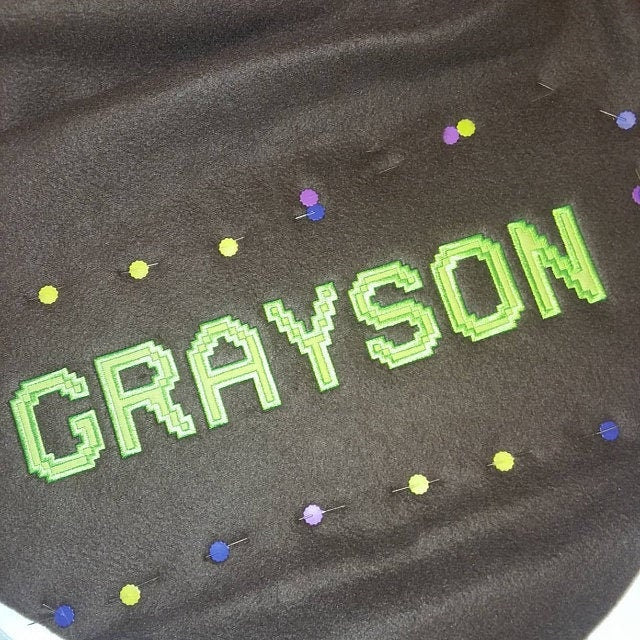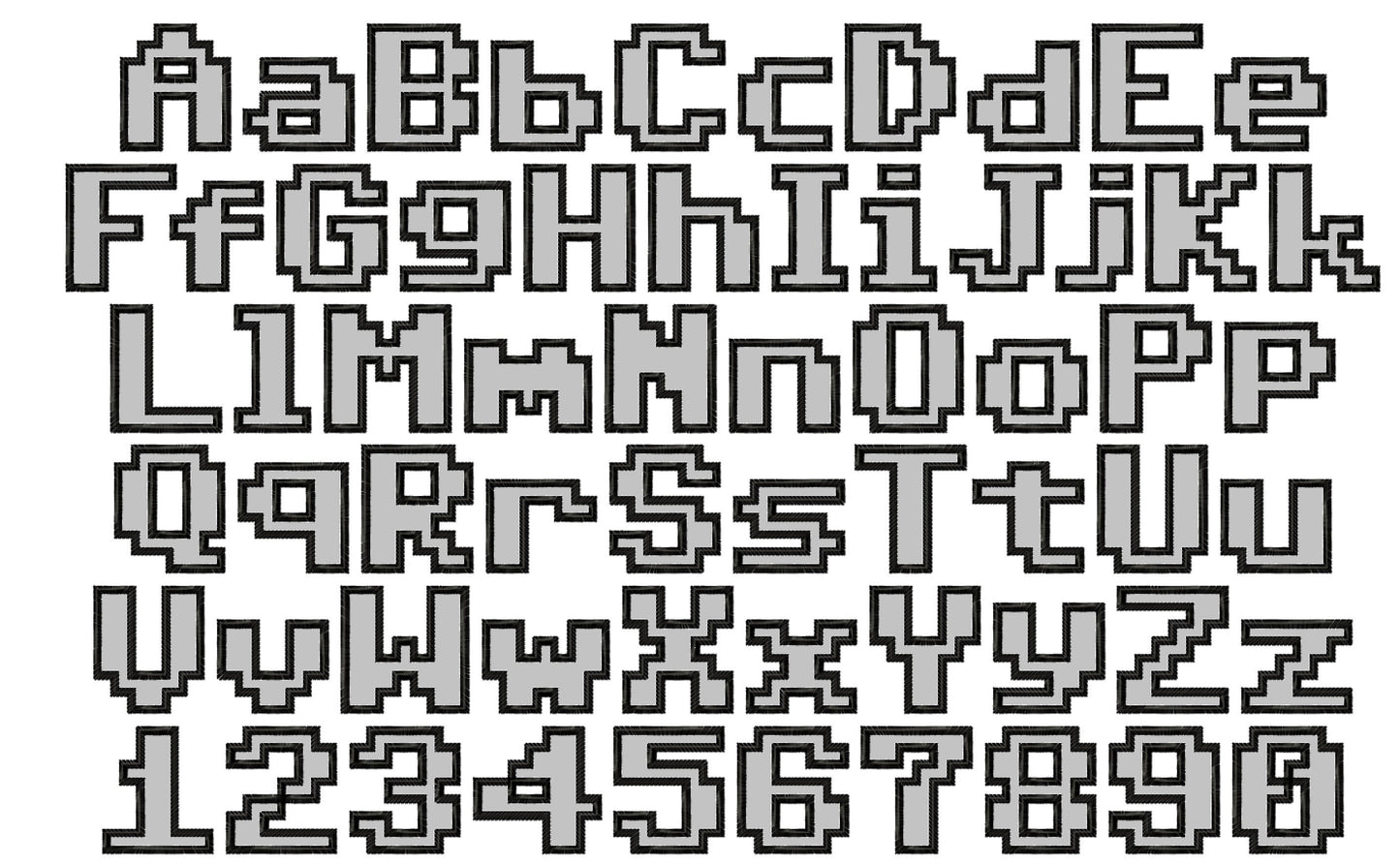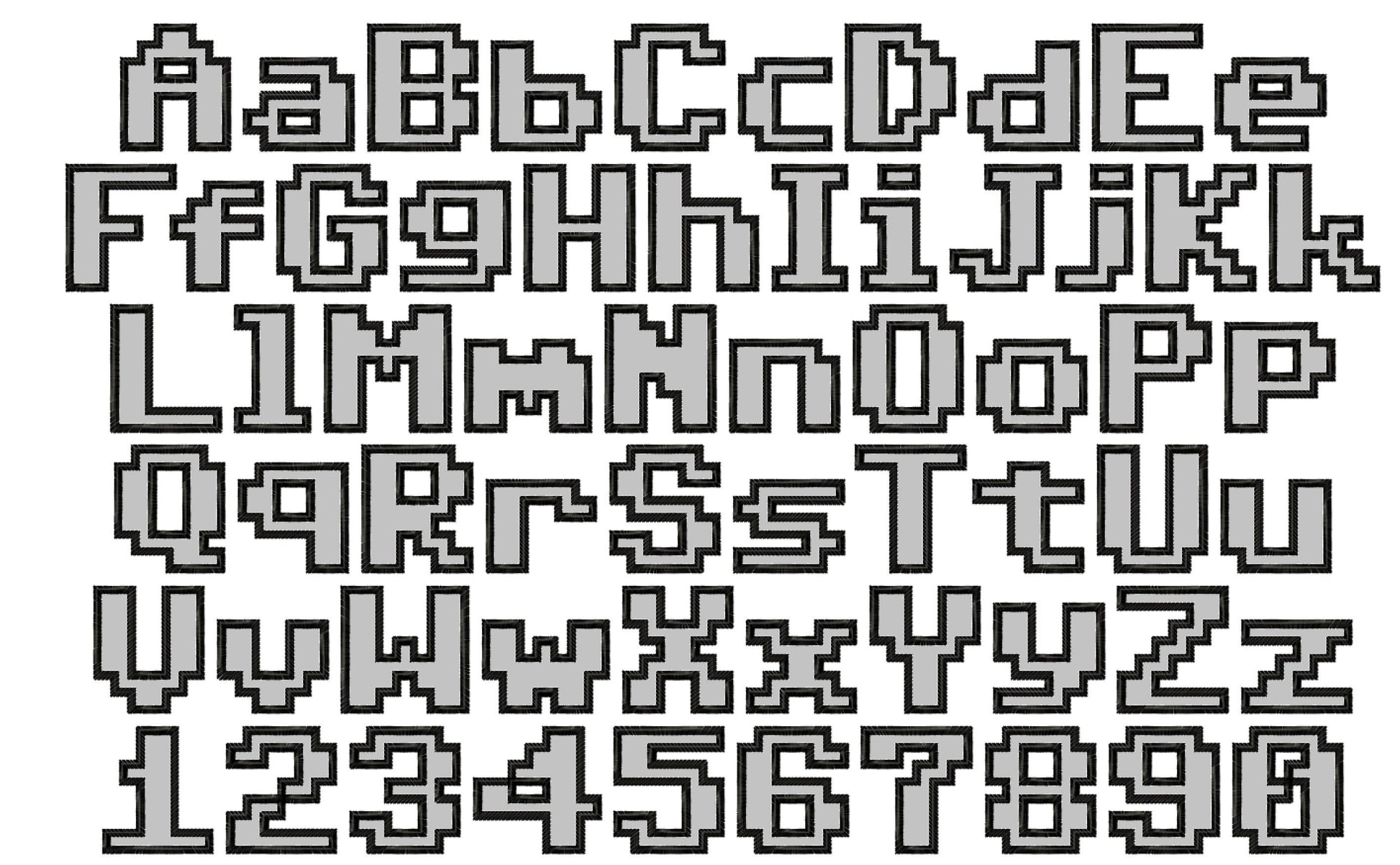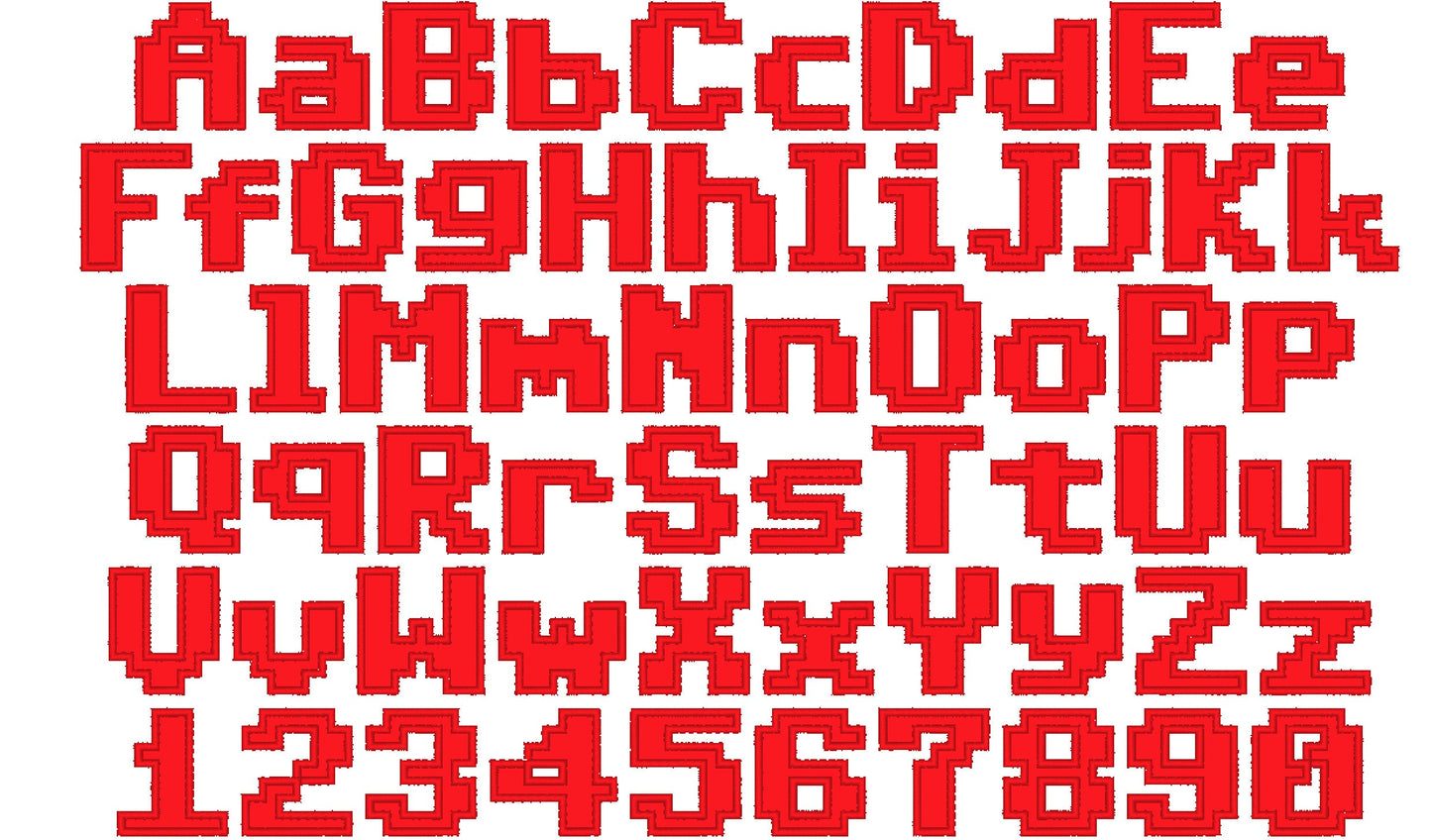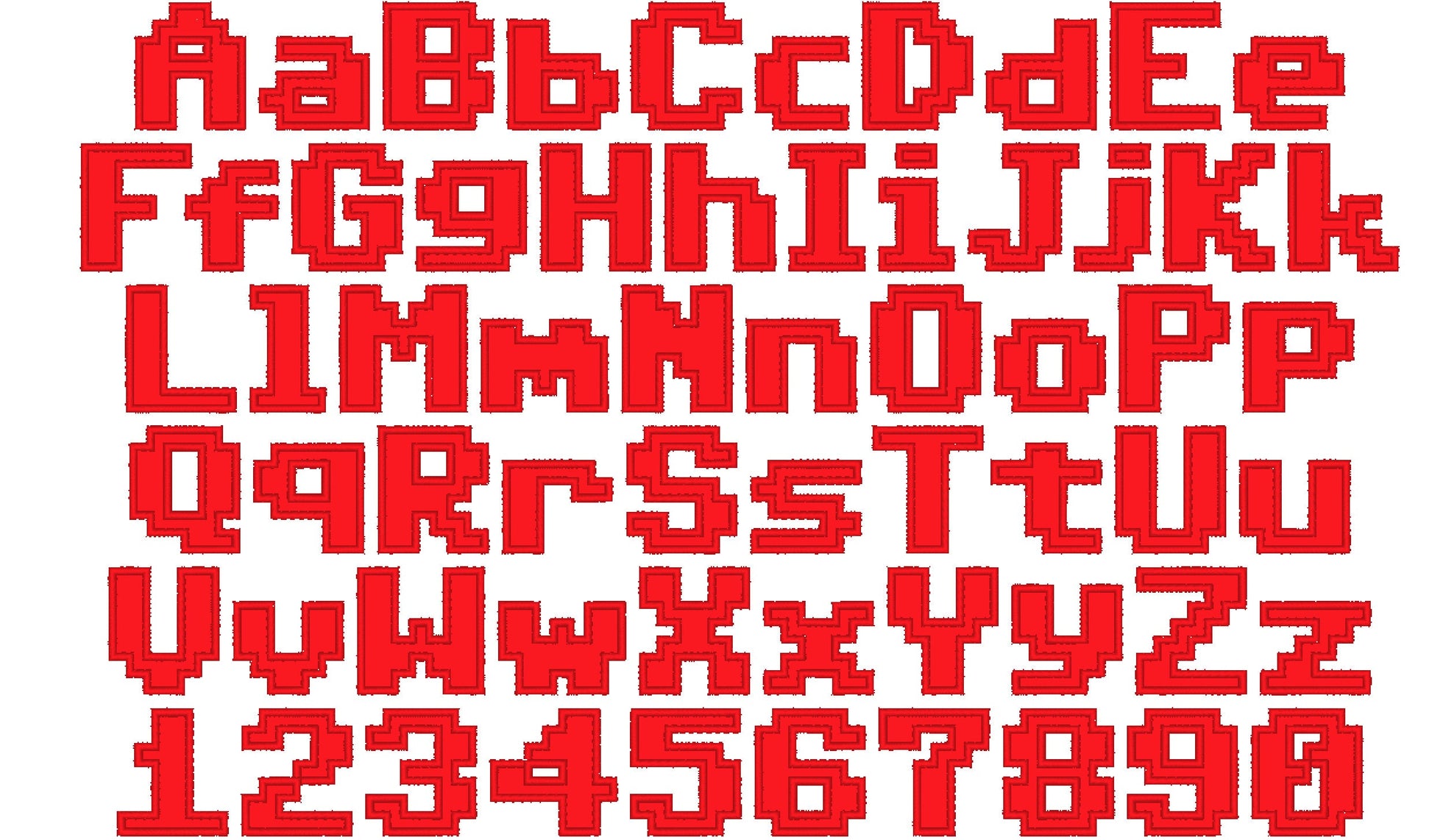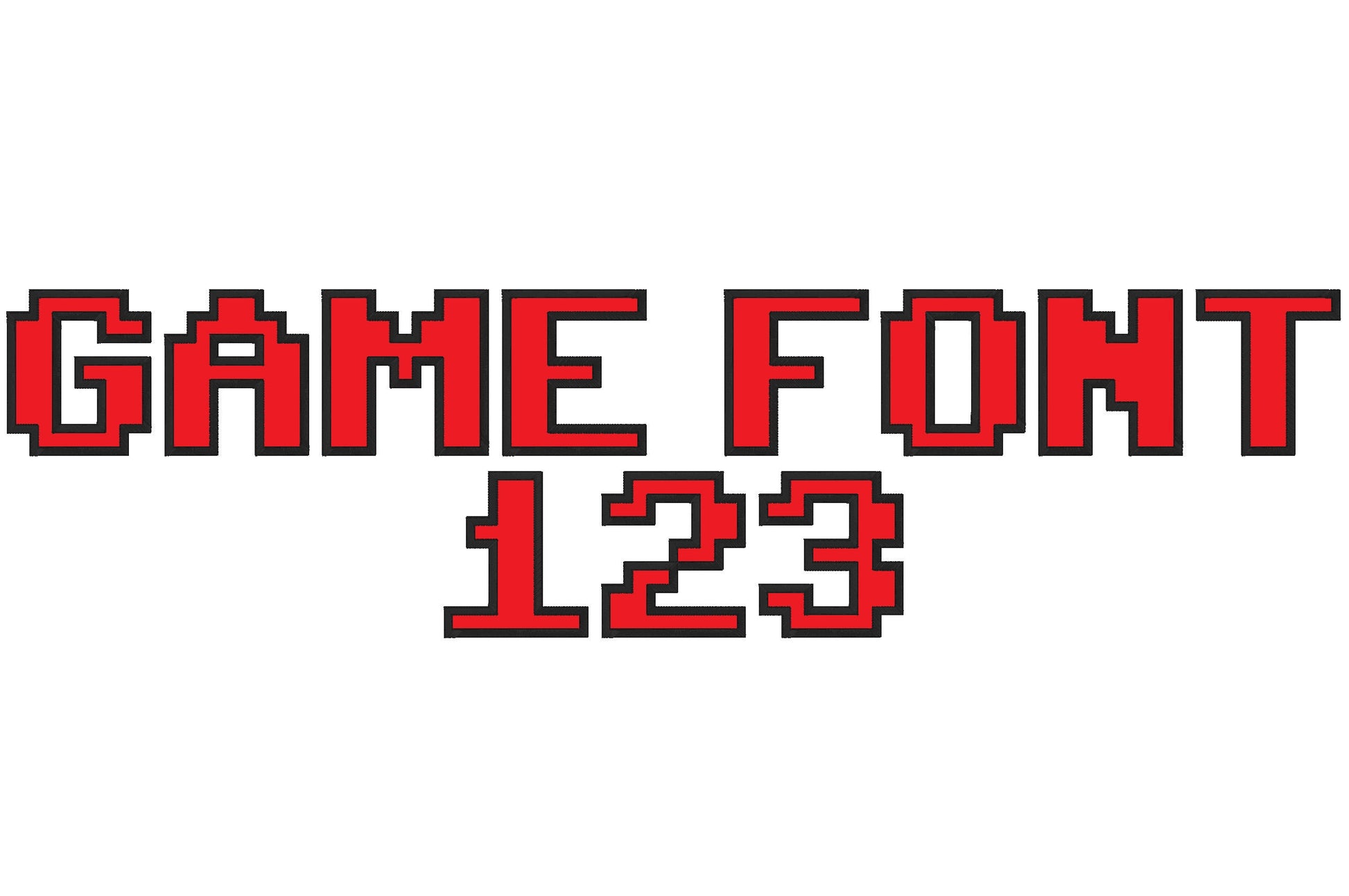
Or click to open the linkA pixel brick applique font for gamer-style boys' names and numbers on shirts, pillows and bags.
Each letter is built from square bricks in applique. Letters and numbers in eight sizes: 2, 2.5, 3, 3.5, 4, 4.5, 5 and 6 inches.